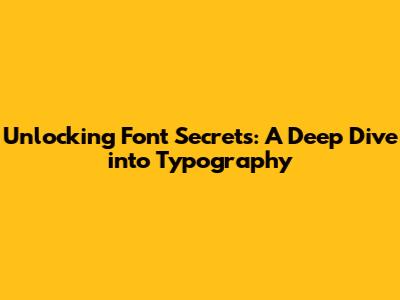
- Serif Fonts: These have small strokes at the ends of the letters (serifs). They convey a sense of tradition, reliability, and formality. Examples: Times New Roman, Georgia.
- Sans-Serif Fonts: These lack serifs, giving them a clean, modern look. They are often used for web design because they are easy to read on screens. Examples: Arial, Helvetica, and Open Sans.
- Monospace Fonts: Each character in these fonts occupies the same amount of horizontal space. They are frequently used for code and technical text. Examples: Courier New, and Consolas.
- Script Fonts: These mimic handwriting, offering a more personalized and elegant feel. However, they can sometimes be hard to read at smaller sizes. Examples: Lucida Handwriting, and Brush Script MT.
- Display Fonts: Designed for headlines and short text, these fonts are often creative and eye-catching. However, they might not be suitable for long bodies of text. Examples: Impact, and Bauhaus 93.
Hey guys! Ever wonder why some fonts just pop while others... well, they fall flat? Today, we're diving headfirst into the fascinating world of typography. We'll be exploring the ins and outs of fonts, specifically focusing on the often-overlooked but crucial aspects of pseoscbullpenscse hv regular font (don't worry, we'll break that down!), font choices, and how they can drastically change the impact of your text. From web design to crafting the perfect document, understanding fonts is a total game-changer. Let's get started and decode those font secrets together!
Decoding "pseoscbullpenscse hv regular font"
Alright, let's tackle that seemingly random string of letters: pseoscbullpenscse hv regular font. What in the world does it mean? Breaking it down can seem daunting, but it's really not that bad. In essence, this phrase is pointing towards a specific style of font, most likely found within a larger font family, which we'll also define in a moment. Let's analyze the components: "pseoscbullpenscse" and "hv" are probably referring to the font family. Then we have "regular font", the descriptor which tells us the style within the family that we're talking about, like weight. There are many other variations, like bold, italic, or condensed, for example. Understanding the naming conventions of font families and styles helps you find exactly what you are looking for. It is usually determined by the designer. For example, if you are working on a project and the client requests a specific font that you don't know the exact name of, you can perform an image search online to find it. This knowledge will become essential for any designer, writer, or anyone who works with text frequently. Knowing this can seriously up your design game.
Now, let's get into the specifics of a font: font families. A font family is a group of related fonts that share a common design. Think of it like a family of people; they all have similar features but unique characteristics. These include fonts like Arial, Times New Roman, and Helvetica, and inside of these families, you'll find different styles, or weights, such as bold, italic, condensed, and extra bold. A font's weight refers to how thick or thin the strokes of the characters are, impacting how the font looks on the screen. Choosing a font family and the right weight within that family will completely alter the message that you are conveying. Choosing the best font for your projects can be as simple as understanding the basic concepts of font.
The Importance of "Regular"
So, what does "regular font" mean? "Regular" is the base, the standard, the default. It's the font's typical weight and style. When a font family is designed, it usually includes a regular weight. This allows for other variations to build upon it, like bold, italic, or other, more specialized variations. It's the go-to choice for body text, providing readability and clarity. Regular fonts maintain a balance between distinct characters and the comfortable reading experience. The regular weight is designed to be easily read in various contexts, from books to websites. While other weights and styles can be more eye-catching, the regular style provides the foundation of a clean and functional design. This choice emphasizes the content, rather than the form. Regular fonts ensure that text is accessible, which is essential for great design.
Font Choices and Why They Matter
Okay, now that we've deciphered the jargon, let's chat about font choices. The font you pick is more than just a stylistic preference; it's a critical decision that influences how your audience perceives your message. Fonts have personalities – they can be formal, playful, modern, or classic. Choosing the right font sets the tone and builds a brand's identity. Do you want to appear professional, friendly, or edgy? The font helps deliver that message. A well-chosen font enhances readability, making your content more enjoyable. Poor font choices, on the other hand, can make text difficult to read, pushing readers away. Considering the context where your font will be used is key. Is it for a website, a print document, or a presentation? Certain fonts work better in different mediums. For instance, some fonts are optimized for screen viewing, while others are great for print.
Font Categories
Understanding font categories is a good starting point. Here are some of the major ones:
Matching Font with Purpose
For most projects, you'll want to use a combination of fonts. A common practice is pairing a serif font for the body of text with a sans-serif font for headings. This offers visual contrast and improves readability. Remember, the goal is to make your content both visually appealing and easy to understand. Consider the target audience. A font that works well for a younger audience might not be appropriate for an older demographic. And of course, keep it simple. Overusing fonts can create visual clutter. Sticking to one or two fonts throughout a project keeps things clean and professional. The more you work with fonts, the better you'll become at selecting them. Don't be afraid to experiment, and pay attention to what resonates with your audience.
Font Aesthetics and Readability
Let's talk about the aesthetics and readability of fonts, which are crucial. A beautiful font is great, but it has to be readable, otherwise, it is useless. The goal is to make your text appealing and easy to consume. Font size is one of the most important factors influencing readability. The general rule is to ensure your text is large enough to read comfortably. But what works for print might not work for screens. Line spacing and letter spacing are also key. Too little space, and letters will be squished together; too much space, and they'll seem disconnected. Line length also matters. Long lines can tire the eyes, while short lines can feel choppy. Find a balance that suits your project.
Font Weight and Style
Font weight also impacts readability. Bold fonts are good for emphasis, but too much boldness can make text harder to read. Italics are useful for highlighting, but using too many italics will make the text more difficult. The color of your font matters too. You need enough contrast between the text and the background. Dark text on a light background is often the easiest to read. The context of your text also impacts readability. Is it a long article, a website, or a poster? Design choices need to be made according to the format used. Font design, as a whole, can affect the effectiveness of any text.